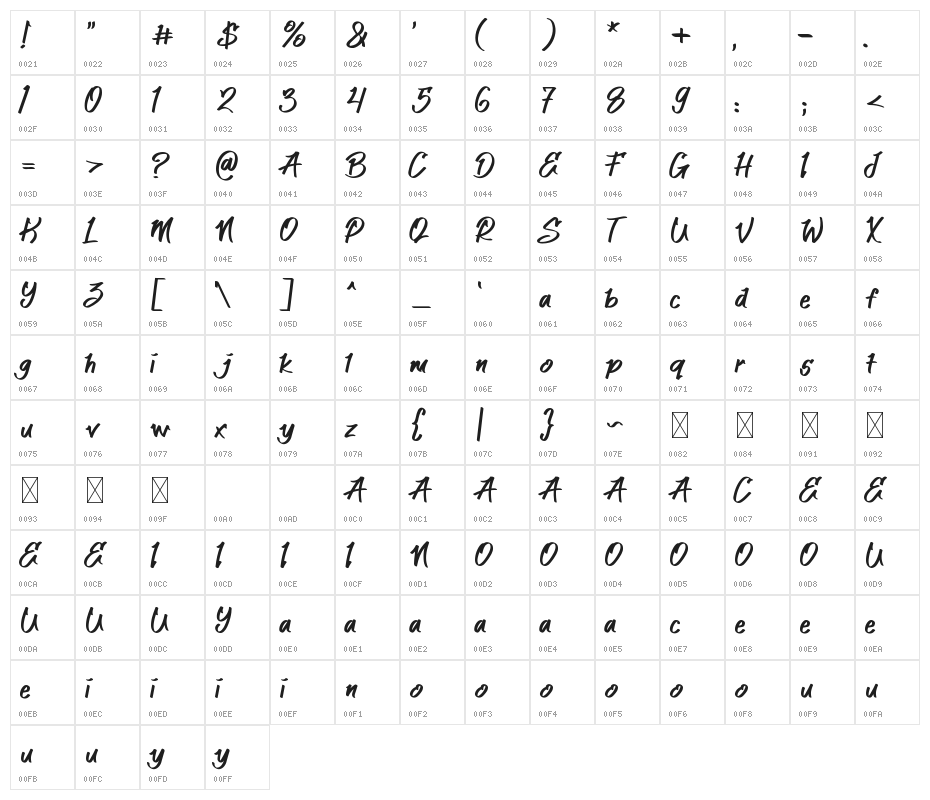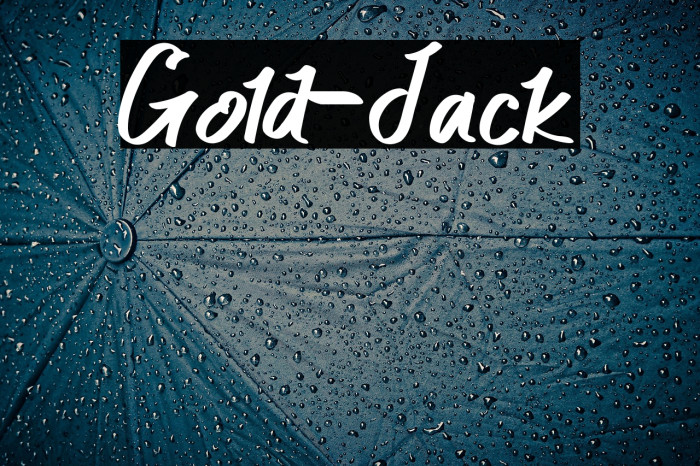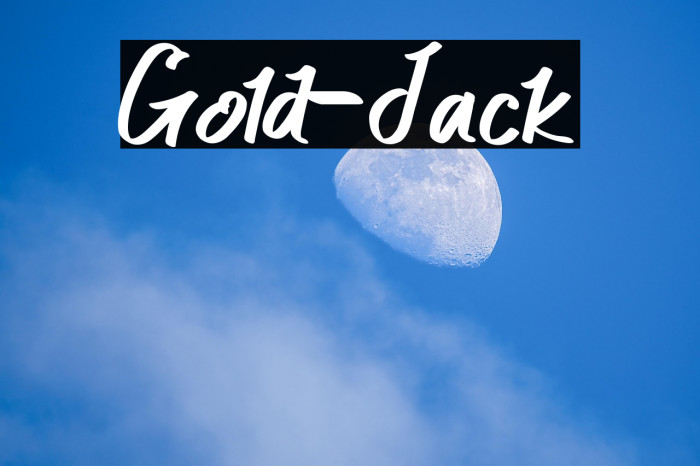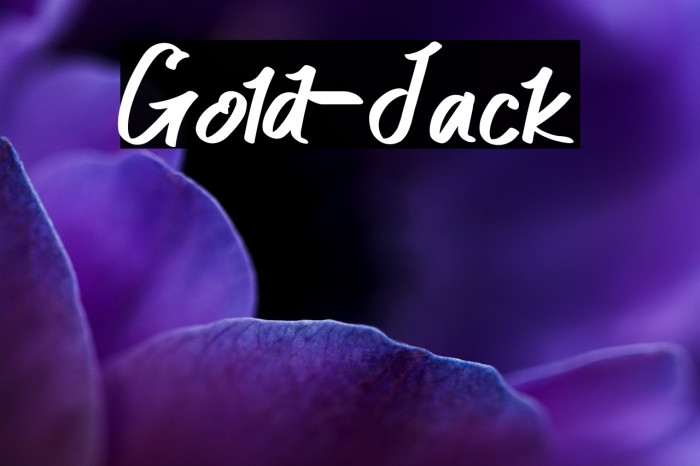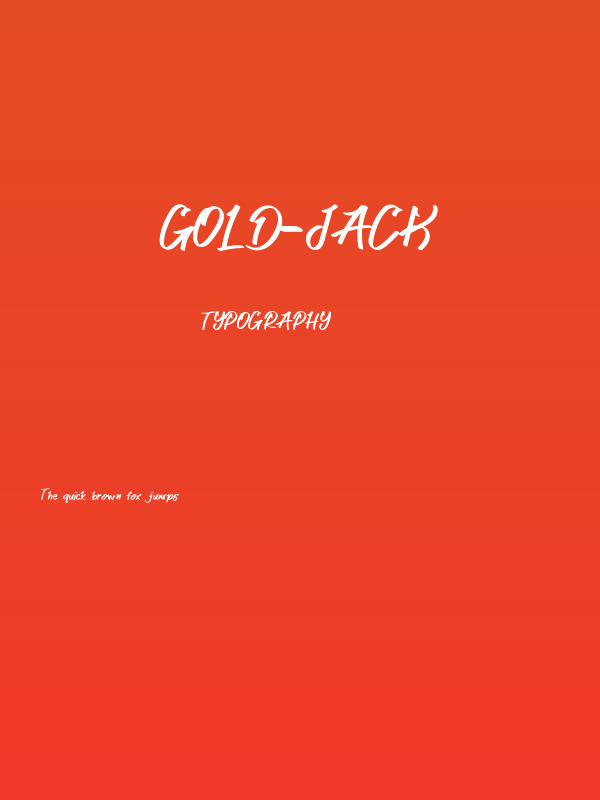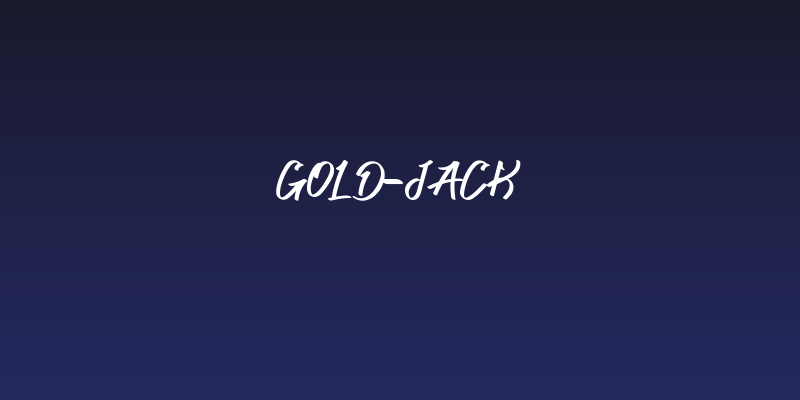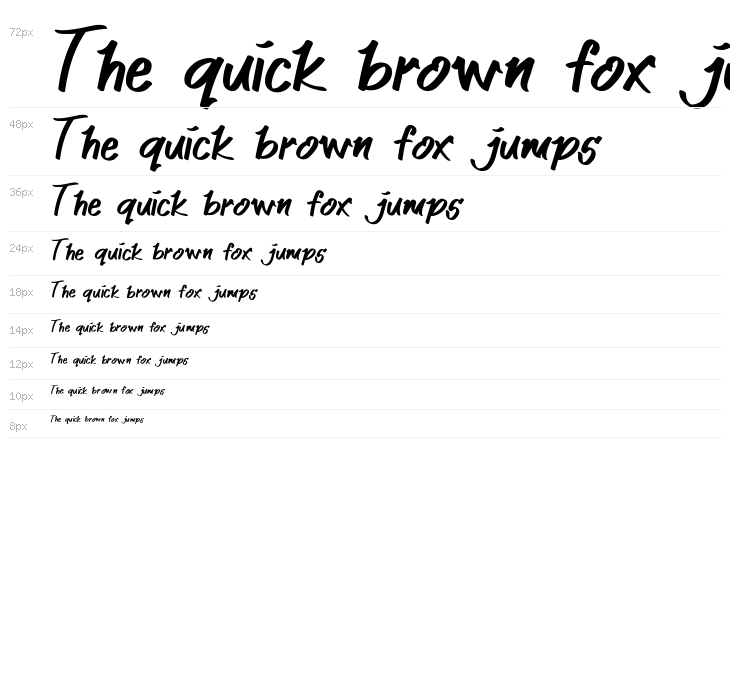
Gold-Jack Font
Gold-Jack Description
This font features a bold, cursive style with a dynamic and flowing appearance. The strokes are thick and expressive, giving it a lively and energetic feel. The uppercase letters are slightly larger and more pronounced, while the lowercase letters maintain a consistent flow. The numbers and special characters are designed to match the overall cursive style, ensuring a cohesive look. The font's playful and artistic nature makes it suitable for creative projects that require a touch of elegance and flair.
| Proposed Projects | Ideal for invitations, greeting cards, branding, and artistic projects. |